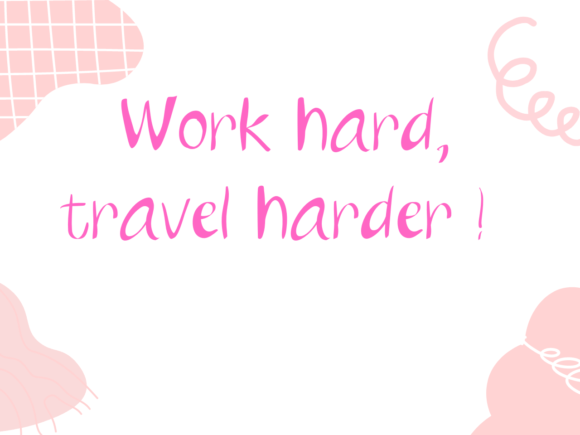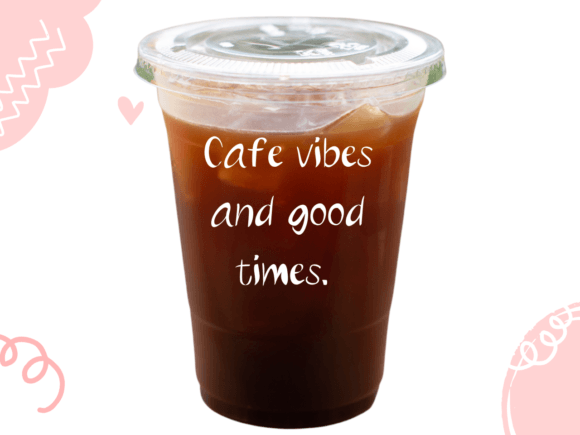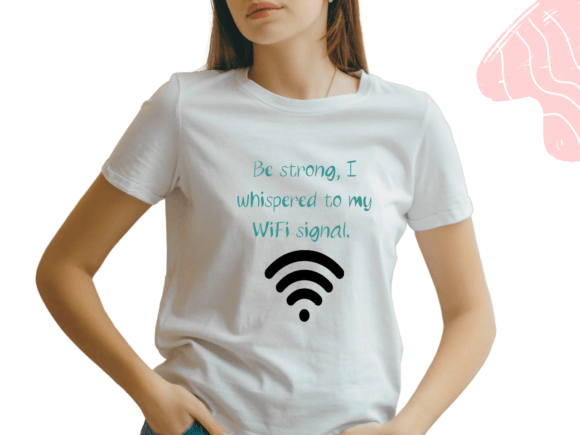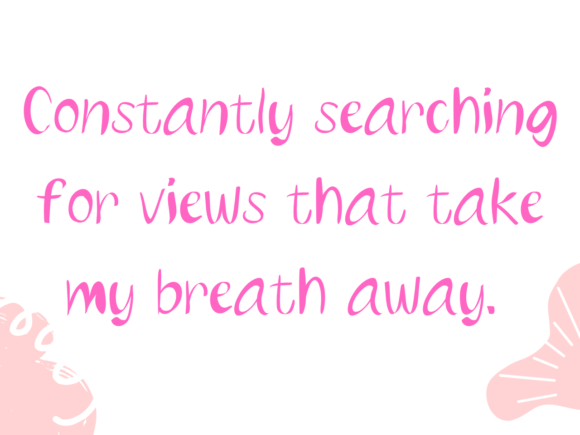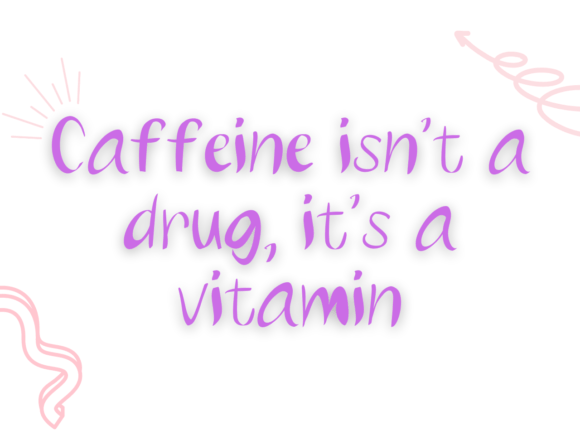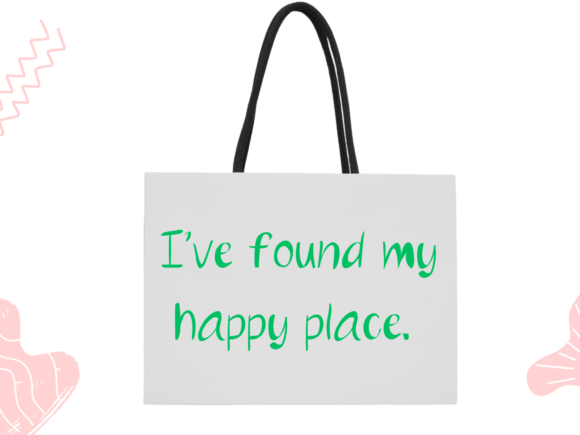
Introduction to Pakwan Font
Character design work from the concept of hand writing by applying different brushes.
Make the font design work different Have their own uniqueness this font design can be used to increase the prominence of your work, whether you use it in a letter.